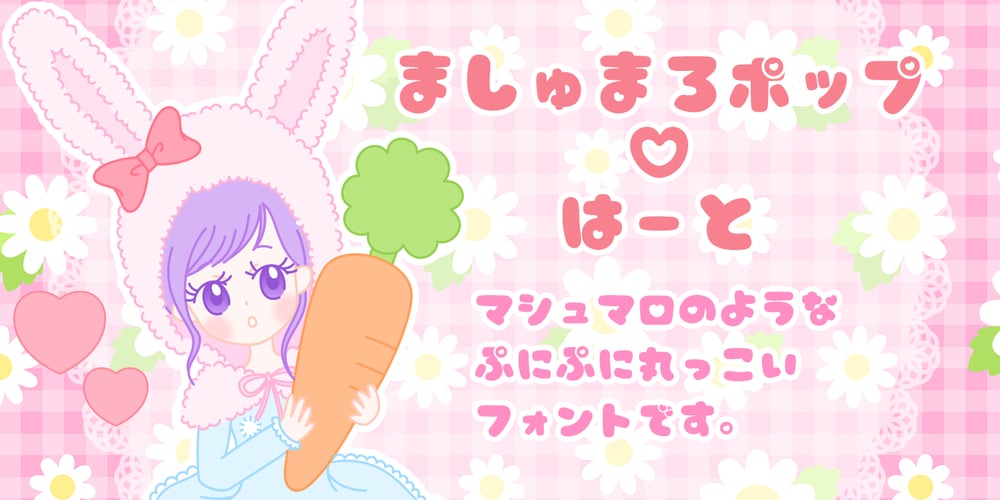
Marsh Mallow Pop Heart Font Family was designed by published by Norio Kanisawa. Marsh Mallow Pop Heart contains 1 styles and family package options. “MarshmallowPopHeart” is a cute font that imagined a sweet marshmallow. Since hearts are mingled in various places such as voiced points and parts of kanji(chinese characters), it may be fun to look for it. Because the heart is missing, it is recommended for when you want to designing cute. I think whether it’s good for contents for young ladies. Because it is a thick font, it may be good to use it for headlines and where you want to make it stand out. It corresponds to Hiragana · Katakana · Alphabet · Numerals · Symbols · Kanji(chinese characters). You can also write vertically. You can use it easily, because it contains JIS first · second level, and IBM extended Kanji(about 6700chinese characters). I think it’s better to become a font that makes people who use or watch them fluffy and feel happy like when eating a pastel colorful sweet marshmallow. <「ましゅまろポップ ハート」紹介文> ぷにぷにの丸っこい甘いマシュマロをイメージしたかわいいフォントです。 濁点や漢字の一部など、色んな場所にハートが紛れ込んでいるので、探してみるのも楽しいかもしれません。 ハートが紛れ込んでいるので、かわいくデザインしたい場合などにオススメです。 若い女性向けコンテンツにもいいかと思います。 太めのフォントなので、見出しや目立たせたい所に使うのも良いかも知れません。 ひらがな・カタカナ・アルファベット・数字・記号類・漢字を収録、縦書きもできます。 漢字はJIS第一水準・第二水準・IBM拡張漢字に対応(約6700文字)してますので、使い勝手も良いかと思います。 パステルカラーのカラフルな甘いマシュマロを食べる時みたいに、使ったり見てくださる方がふわふわ幸せな気持ちになれるフォントになればいいなぁ…と思います。 <スタイルカテゴリー> ファンシー、装飾